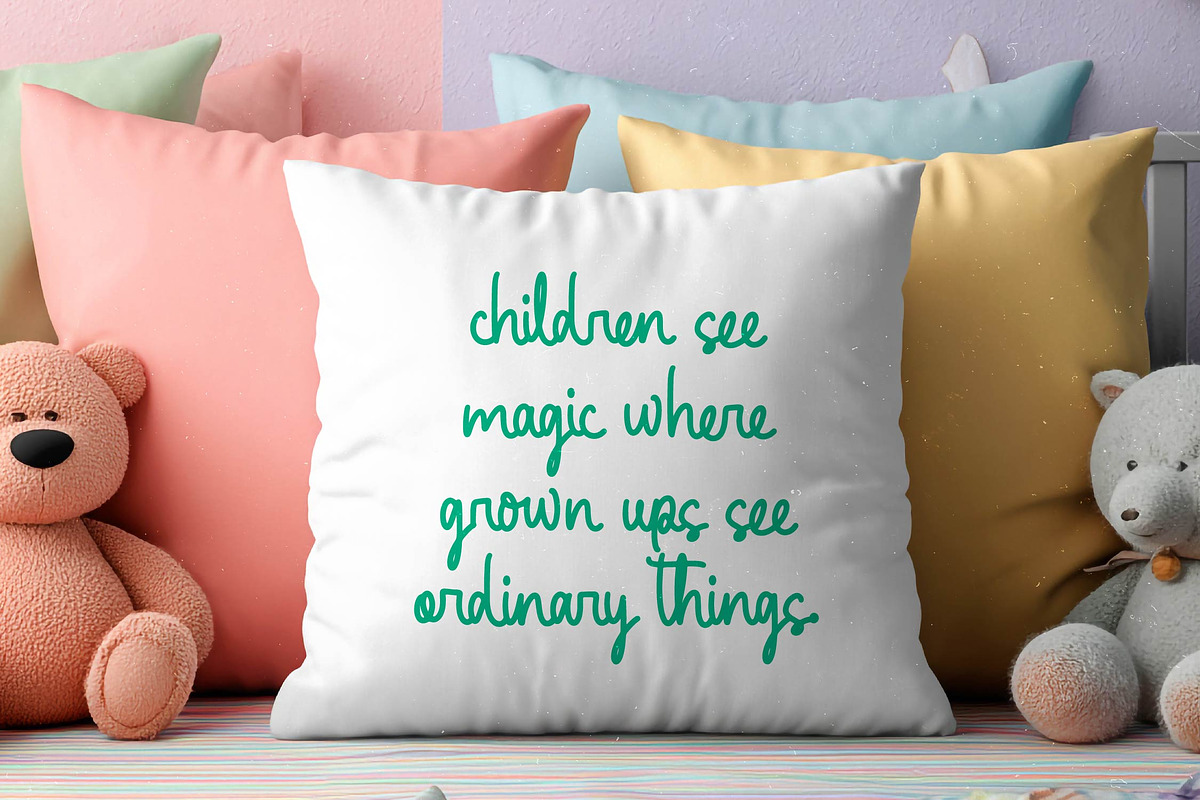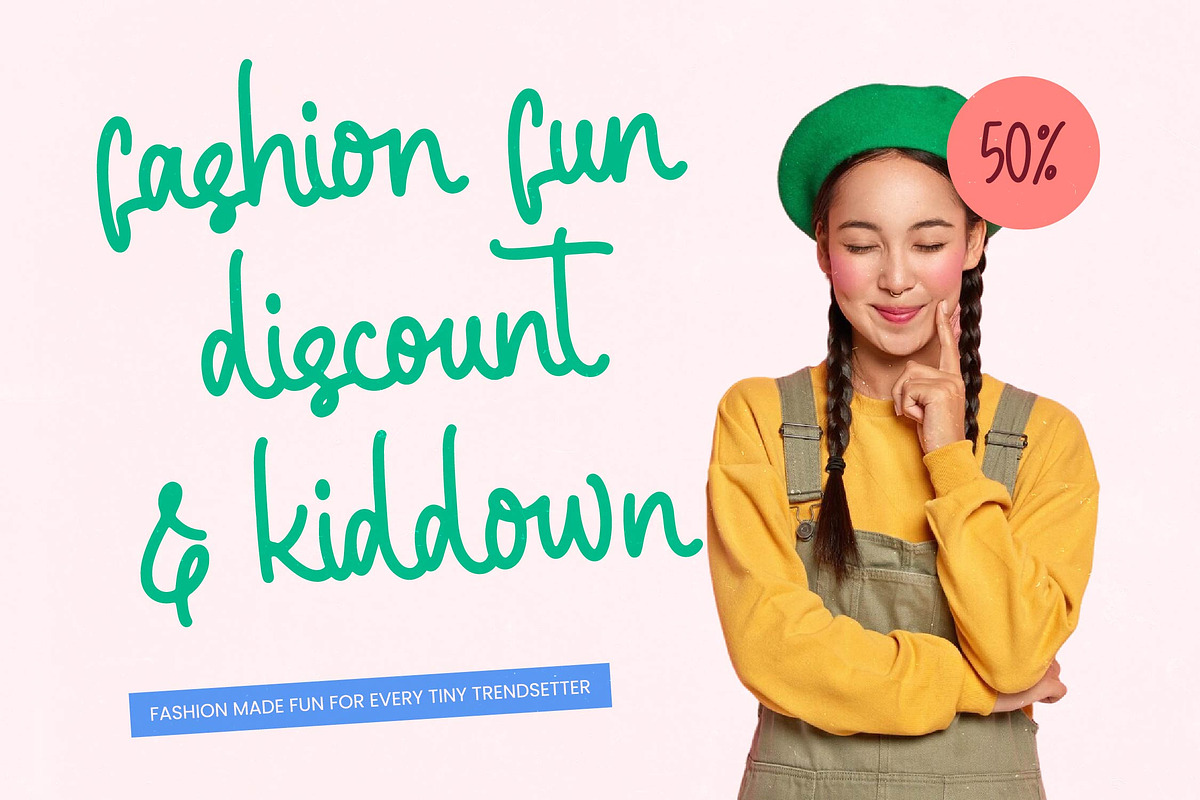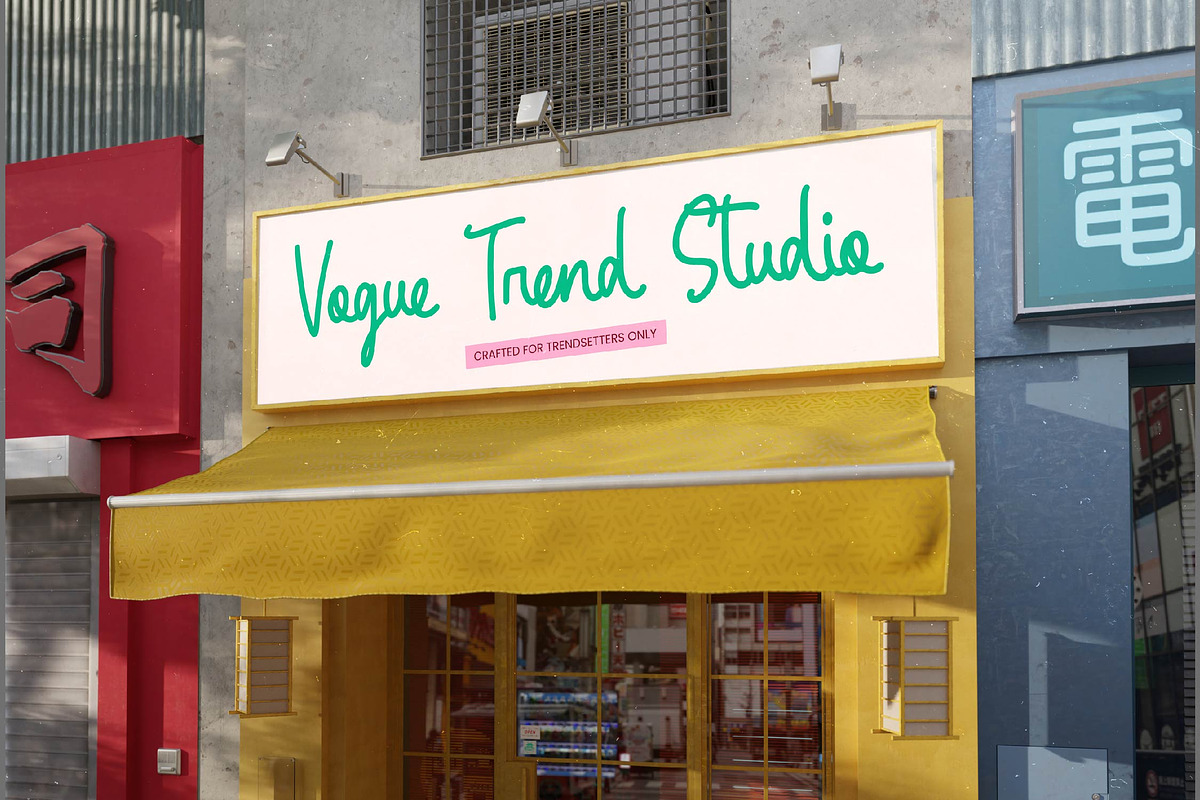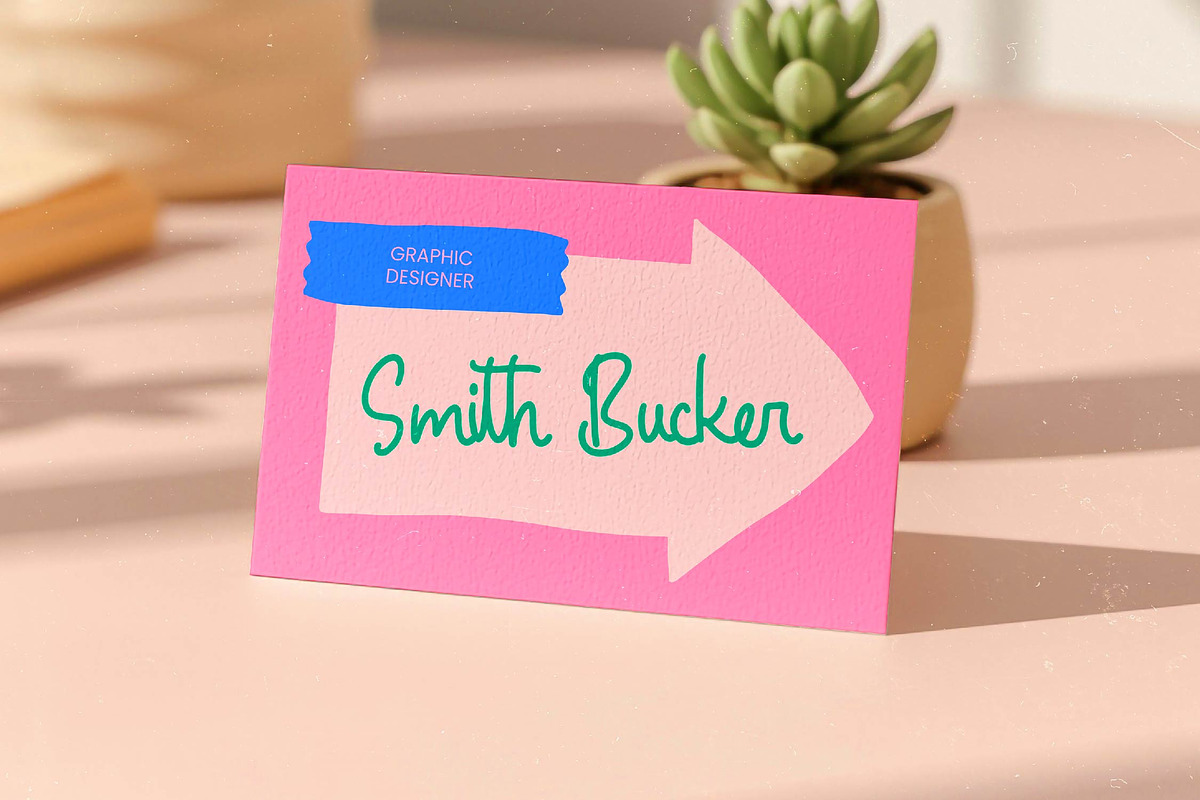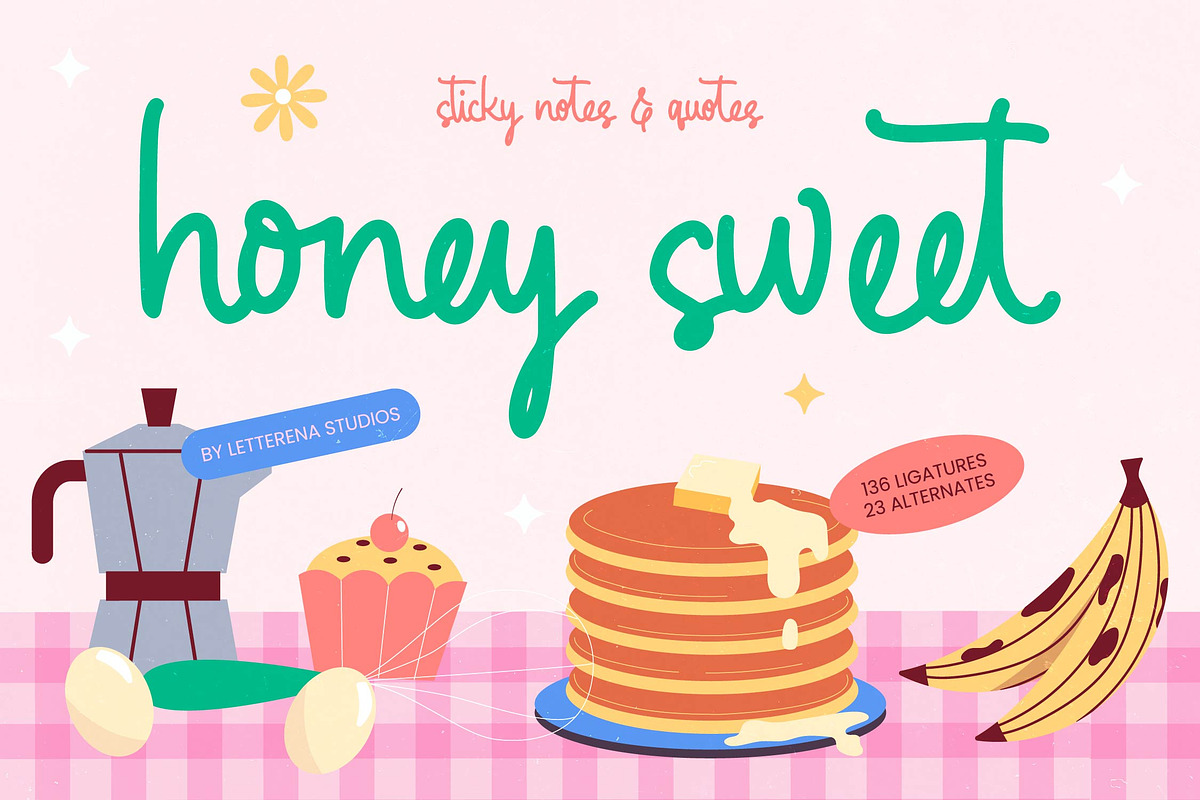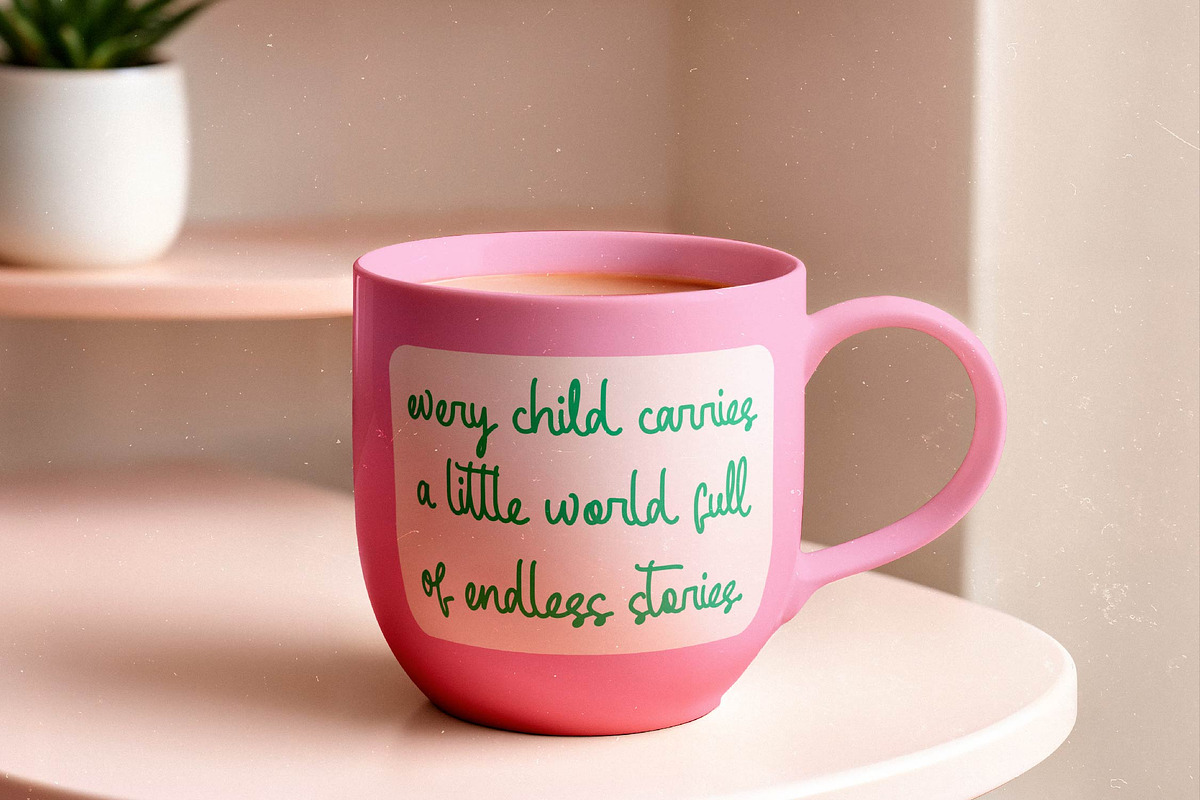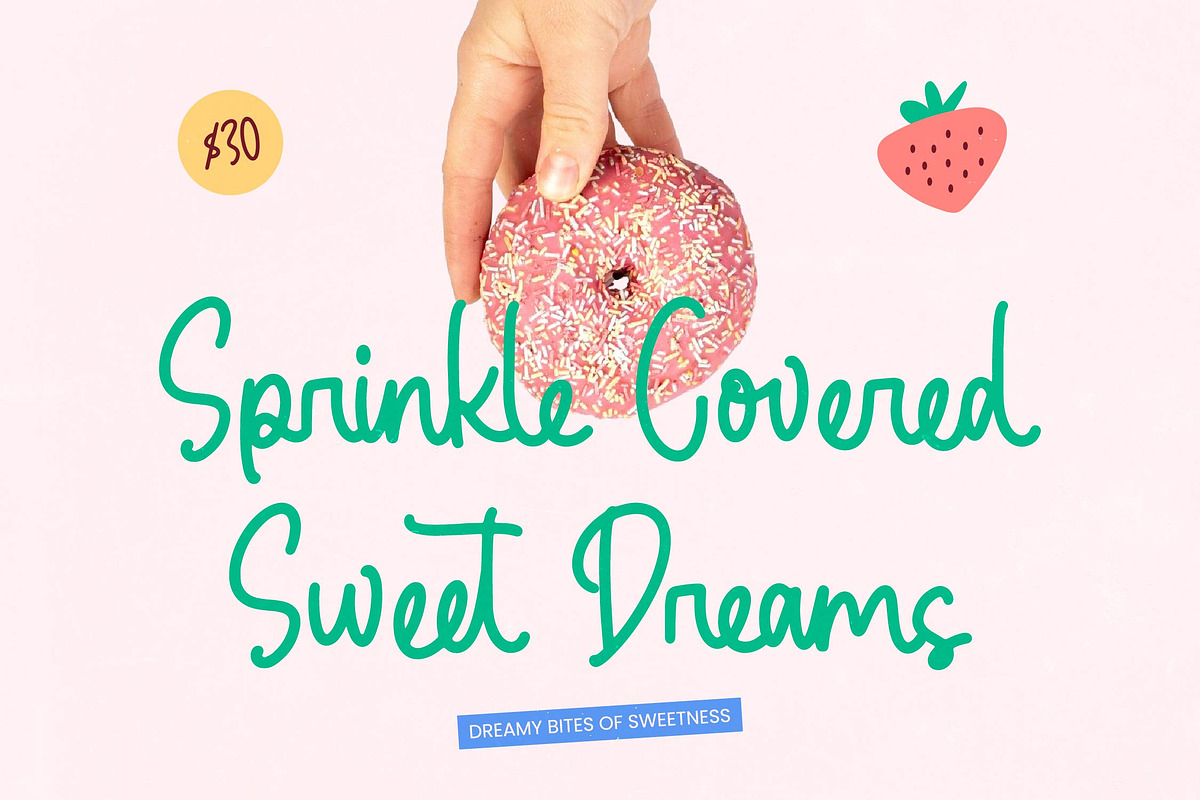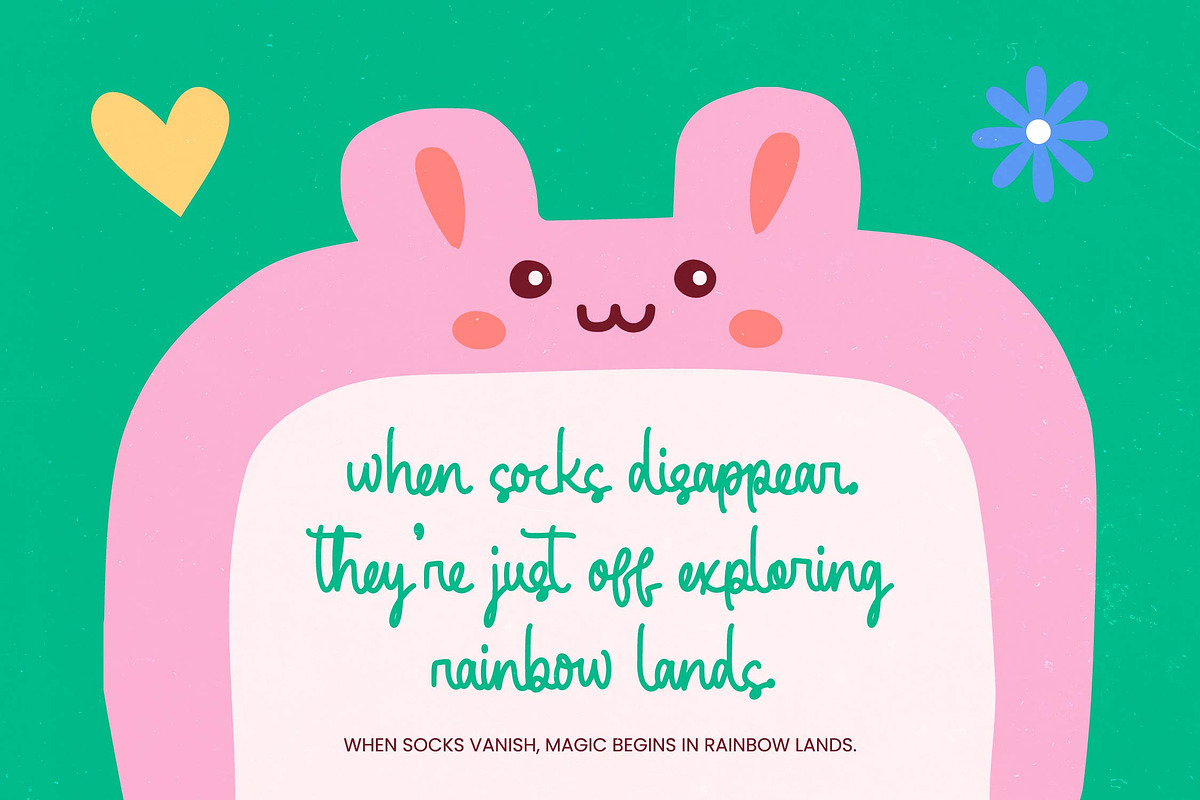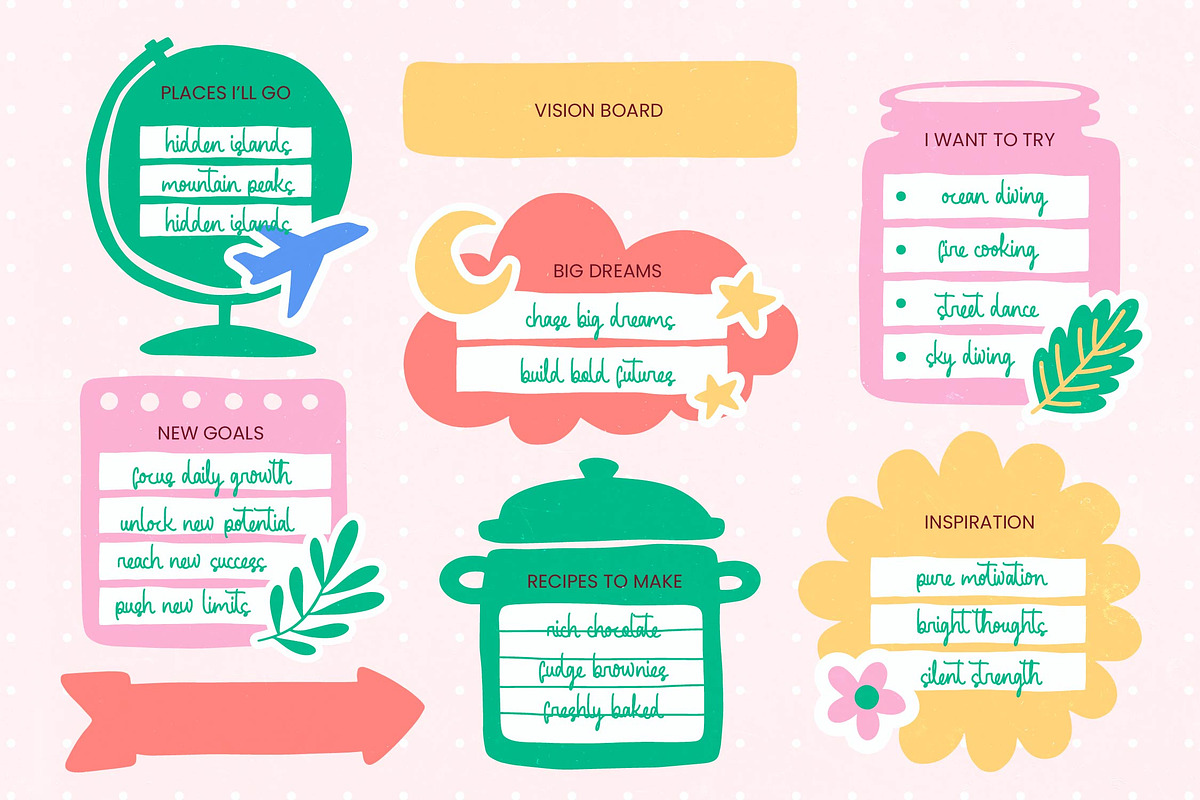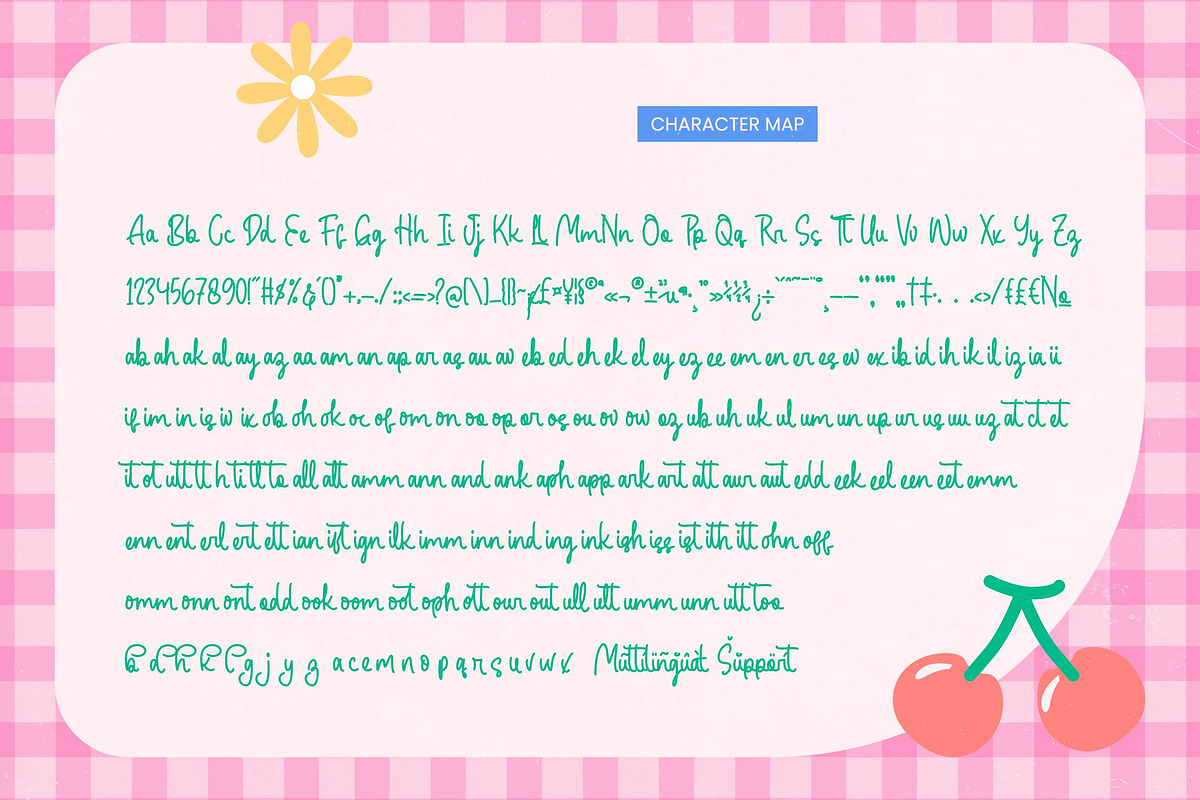
Honey Sweet Sticky Notes & Quotes
Honey Sweet - Sticky Notes & Quotes
Elevate your creative projects with a touch of authentic organic charm and professional personality. Honey Sweet - Sticky Notes & Quotes is a premium handwritten font designed to bridge the gap between casual expression and high-end design. Its fluid strokes and warm aesthetic make it an essential asset for designers looking to inject a human touch into digital and print media alike, ensuring your message feels both approachable and stylishly curated.
Unleash unparalleled creative freedom with a rich library of custom alternates and ligatures that ensure a bespoke feel for every word. With 136 ligatures and 23 alternates, Honey Sweet - Sticky Notes & Quotes offers a natural flow that mimics genuine handwriting, effectively preventing repetitive character patterns. This versatile typeface empowers creators to build dynamic compositions that stand out in a crowded marketplace, providing a hand-crafted aesthetic without sacrificing legibility.
Globalize your brand identity with comprehensive character sets that reach a diverse audience. With its extensive multilingual support, Honey Sweet - Sticky Notes & Quotes adapts seamlessly across global markets, making it incredibly versatile for international projects. Whether you are targeting local boutiques or an international audience, this font maintains its visual consistency and artistic integrity across various languages, ensuring your brand speaks clearly everywhere.
Transform your marketing materials into captivating visual stories through strategic ideal applications. Honey Sweet - Sticky Notes & Quotes is perfect for lifestyle branding, product packaging, and social media graphics where a friendly, approachable vibe is paramount. It is also an excellent choice for stationery design, editorial layouts, and inspirational quotes, adding a playful sophistication and commercial appeal to every project it touches.